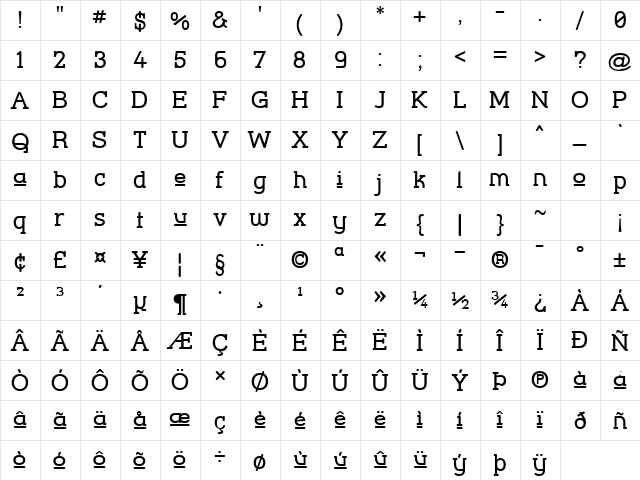
Street Corner Slab Upper Regular
Design Context for Street Corner Slab Upper Typeface
Street Corner Slab Upper features prominent, blocky serifs that give it a confident, grounded presence — equally at home in editorial settings and bold branding work.
Works well in editorial design, news publishing, impactful branding, and poster typography.
Pro Tip: Try Street Corner Slab Upper set tight in headlines for a classic editorial feel. Its slab serifs create strong horizontal rhythm that anchors a page layout.